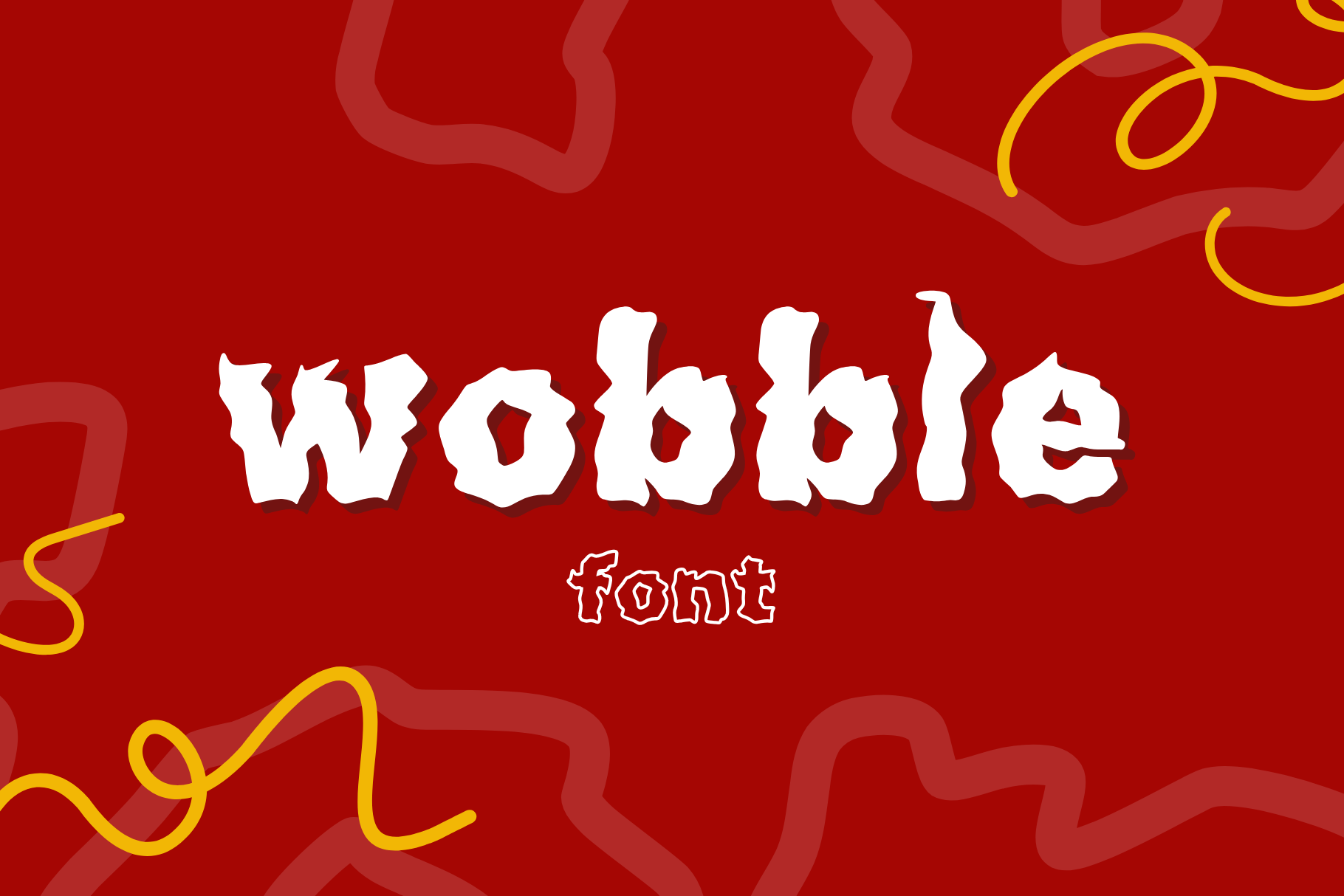
Wobble Display Font
Wobble – A Unique, Handcrafted Display Font with an Energetic Character
Wobble is a one-of-a-kind, handcrafted display font with an energetic personality. Its irregular shapes give the letters a free-flowing look, as if they are constantly in motion. This font adds a unique style to any project. Wobble is ideal for branding, social media, posters, invitations, book covers, and any project where a unique and authentic character is essential. It also works great for logos, stickers, clothing, t-shirts, and other designs that call for a stylish, handwritten touch. Wobble is fully compatible with popular design tools such as Adobe Photoshop, Illustrator, Canva, Figma, Procreate, etc., ensuring a smooth and effortless user experience.
- 113 glyphs – includes uppercase and lowercase letters, numbers, punctuation, and symbols